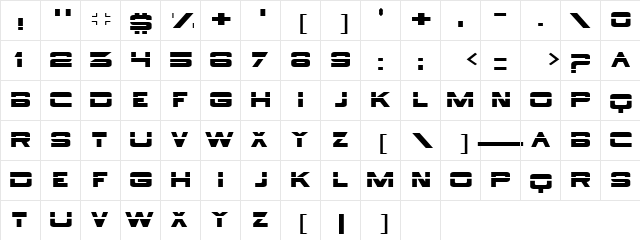
Borg-9 Medium
Design Context for Borg-9 Typeface
Borg-9 is a composed and adaptable typeface that performs quietly and consistently across a wide range of design contexts.